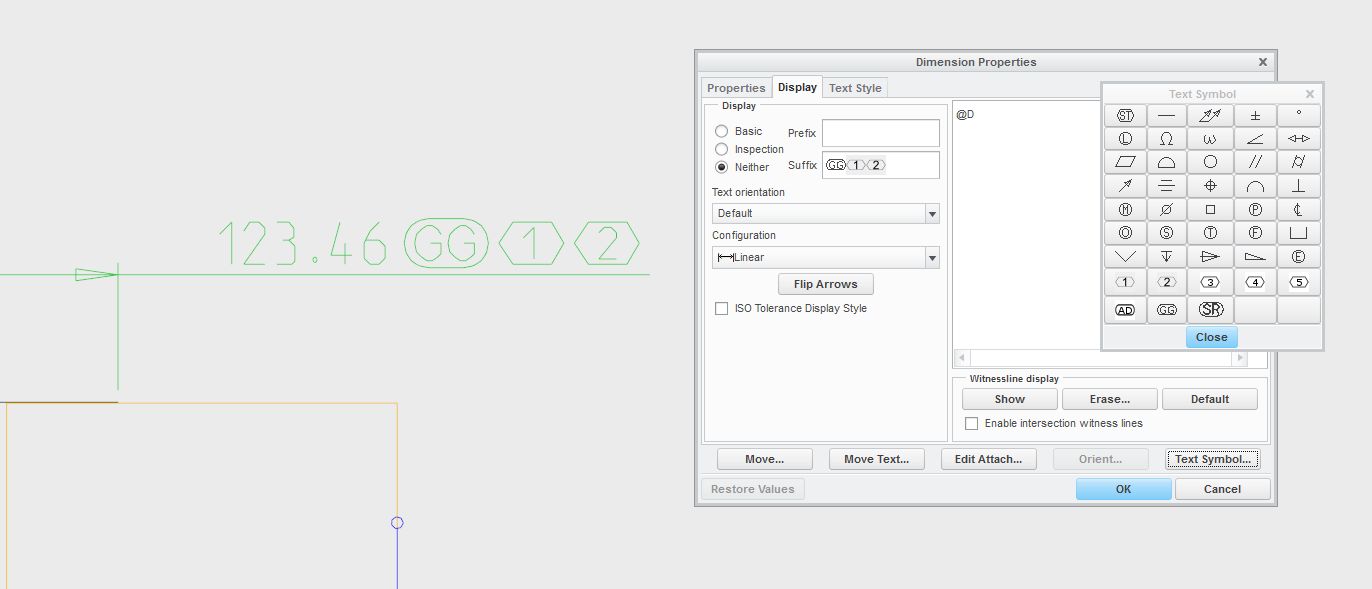
2D Detailing / MBD: New Text and Symbol Fonts
Attached to this blog post is a short presentation on the new text and symbol fonts that we are providing in Creo 4.0. Although I'm listing this enhancement under the 2D Detailing area, it is also available in MBD.
Some questions
• We should have this symbols for Creo 2.0 or 3.0. Any chance they can be backported (e.g. copy fonts)?
Generating such (text-)symbols for ealier Creo version seems like bad spent effort, when they soon will become obsolete.
• Will the Eycatcher symbol (ISO 14405-1; Section 😎 be included as well?
1. We are not going to backport the symbols to Creo 2.0 / 3.0. They will be available starting in Creo 4.0.
2. I looked through my copy of ISO 14405-1 and wasn't able to find anything called an "eyecatcher" symbol... Can you explain what this is and provide a picture of it? I'm pretty sure that all of the symbols specified in ISO 14405-1 are available in the new symbol fonts, so I'm not aware of any missing ones.
1. Ok, at least good to now
2. A new version of ISO 14405-1 is in the stage "International Standard under publication" and should be published until the end of 2016 according roadmap‌ of the TC213. I have access to the German DIN version in draft stage from 2014. In this edition in section 8, the eyecatcher symbol is defined and can be used as complementary indications on the drawing.
10±0.1 <1>  -  10±0.2 <2>
<1> prior to heat treatment
<2> after heat treatment
The eyecatcher symbol is a honeycomb containing numbers. The additional text is typically placed nearby the drawing header.
Attached a screenshot of Creo 2.0 using our custom made textsymbols.:
At the moment it is too late to add these symbols to the symbol font for Creo 4.0, but I will add them to my list for Creo 5.0.
Do you only need numbers 1 through 5 or would there be additional numbers needed?
Raphael,
Do you know what the difference is between Arial and Arial WGL? I didn't see anything that jumped out after searching the web except for this wiki page‌. Is Arial WGL just a subset of Arial or are there actual differences between the font characters.
I believe it's the same character construction - meaning the characters should look the same - but the difference might be in the Unicode character sets that are included in the font file. The Arial WGL that we have gotten from Monotype (our font vendor) includes the Unicode character sets corresponding to the Windows Glyph List. This includes the languages found on this page: WGL Fonts - Fonts.com - Fonts.com
I do not know what Unicode character sets are included in the Arial font available as part of Windows. It's possible that this is not the complete WGL set.
Thanks. Do you know which ASME standard approves Arial as a font to use? I'm glancing at hard copy of ASME Y14.5 - 2009 and all the examples seem to be in Arial but I don't see anything that says that it's Arial. Maybe ASME Y14.2 - Line Conventions and Letting? The reason I ask is that I had some engineer's ask if Arial was ASME approved and I didn't think the wiki page really counted.
Sad to hear that this is already to late for Creo 4.0. This means that we still have to use custom textsymbols? I'm worried that this no longer works, as it seems that the technical implementation to handle such symbols has changed in Creo 4.0.
Numbers 1 to 5 might be a bit tight. Currently we have drawings already using 1 to 4. According the norm the possible numbers are unlimited, practically 1 to 10 would be a good compromise.
Maybe this could be something which still coud be implemented in Creo 4.0: Create a "text in a honeycomb" using @<This is a text@> which is following the currently available "text in a box" @[This is a text@] feature.
Great explanation! I'm guessing the sneak peak discussions will disappear at some point, and if so, it might be worth moving that explanation to a permanent location in the PTC Community as I'm sure I won't be the only person to ask about the new default font.